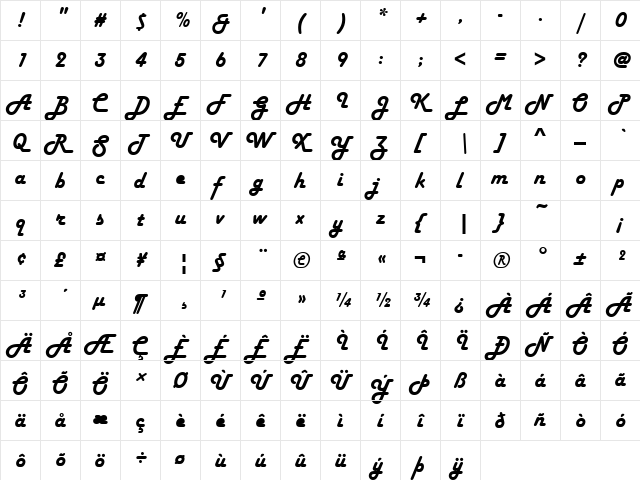
Harlow Solid Italic Italic
Design Context for Harlow Solid Italic Typeface
Harlow Solid Italic is a composed and adaptable typeface that performs quietly and consistently across a wide range of design contexts. The slanted form adds forward momentum and visual energy.
Pro Tip: Try Harlow Solid Italic for annotation and caption copy alongside an upright companion — the contrast in angle creates a dynamic but ordered typographic system.